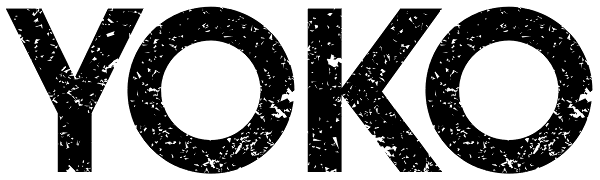
Yoko
Yoko is a straightforward font with a straightforward message, and an interesting finish. Yoko wants you to enjoy life, live to your fullest and be happy. Yoko understands that it doesn’t look easy, but it can be, and you can achieve it. Straight...